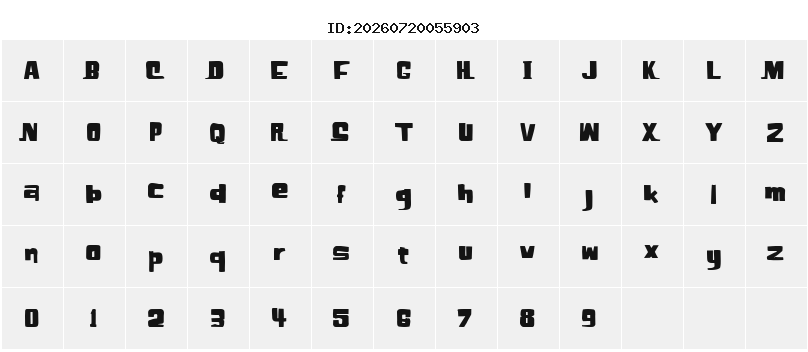
• Font Name: ElHombre
About ElHombre.ttf
ElHombre.ttf is a modern, elegant sans-serif font designed for ultimate readability and visual harmony. Perfect for branding, headlines, web design, and print materials.